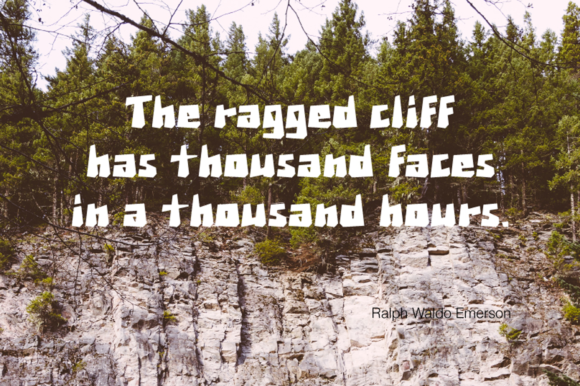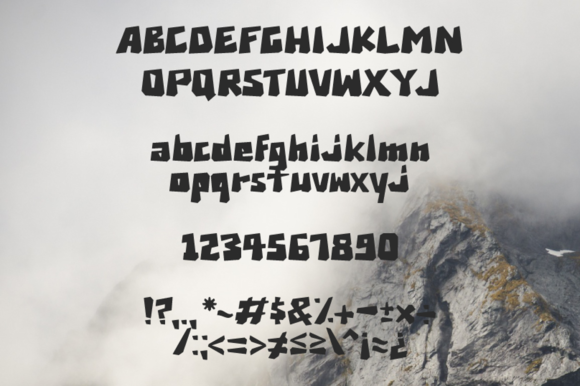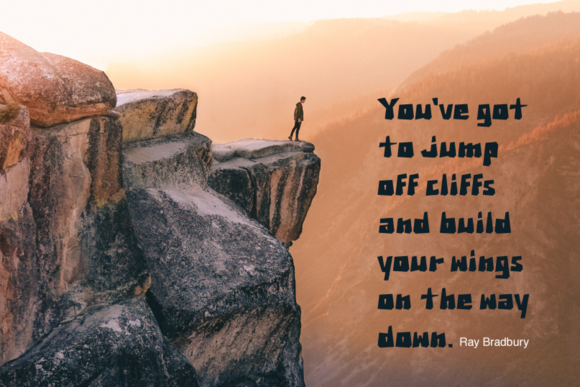
Introducing Brexistone Font: The Perfect Choice for Crafting Projects
Are you a designer or crafter looking for a font that can add a touch of adventure and playfulness to your projects? Look no further than Brexistone Font! This strong and stylish display font is perfect for any crafting project that requires a bold and eye-catching appearance.
What is Brexistone Font?
Brexistone Font is a modern display font that is designed to make a statement. Its unique and playful design makes it perfect for a wide range of crafting projects, from DIY signs and posters to handmade cards and invitations. With its strong and adventurous appearance, Brexistone Font is sure to grab attention and leave a lasting impression.
Key Features of Brexistone Font
So, what makes Brexistone Font so special? Here are just a few of its key features:
- Playful and Strong Design: Brexistone Font has a unique and playful design that is both strong and stylish.
- Perfect for Display Text: This font is designed specifically for display text, making it perfect for headlines, titles, and other prominent text.
- Adventurous Appearance: Brexistone Font has an adventurous and bold appearance that is sure to grab attention.
- Easy to Read: Despite its bold design, Brexistone Font is easy to read, even at smaller sizes.
Uses for Brexistone Font
So, what can you use Brexistone Font for? The possibilities are endless! Here are just a few ideas to get you started:
- DIY Signs and Posters: Add a bold and eye-catching title to your DIY signs and posters with Brexistone Font.
- Handmade Cards and Invitations: Use Brexistone Font to add a touch of adventure and playfulness to your handmade cards and invitations.
- Crafting Projects: From knitting patterns to sewing projects, Brexistone Font is perfect for any crafting project that requires a bold and adventurous appearance.
- Digital Designs: Brexistone Font is also perfect for digital designs, such as social media graphics, blog posts, and more.
Why Choose Brexistone Font?
So, why should you choose Brexistone Font for your next project? Here are just a few reasons:
- Unique Design: Brexistone Font has a unique and playful design that will set your project apart from the rest.
- High-Quality: This font is designed to be high-quality and easy to read, even at smaller sizes.
- Versatile: Brexistone Font is versatile and can be used for a wide range of projects, from DIY signs to digital designs.
In conclusion, Brexistone Font is a playful and strong display font that is perfect for any crafting project that requires an adventurous appearance. With its unique design, high-quality, and versatility, Brexistone Font is sure to be a great addition to any designer’s or crafter’s toolkit. So why wait? Download Brexistone Font today and start adding a touch of adventure and playfulness to your projects!